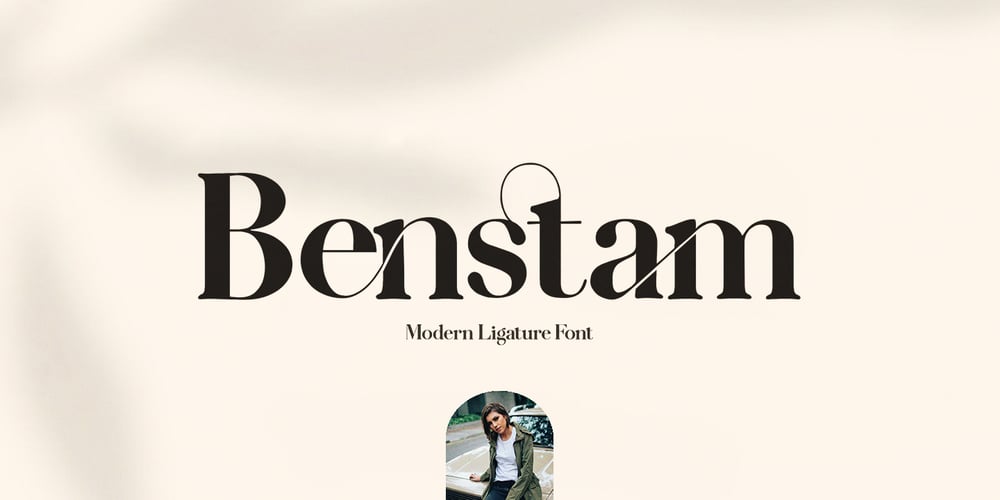
Benstam Font Family was designed by Muhammad Niko Yudha and published by Brand Type. Benstam contains 1 styles and family package options. Benstam – Modern Ligature.Benstam is a stylish font that is chic, elegant and unique font that uses ligatures to smoothly link letters. Perfect for branding, logos, invitation, masterheads and more.Benstam is also included full set of :Uppercase and Lowercase LettersMultilingual SymbolsNumeralsPunctuationLigaturesWish you enjoy our font and if you have a question, don’t hesitate to drop message & I’m happy to help ๐